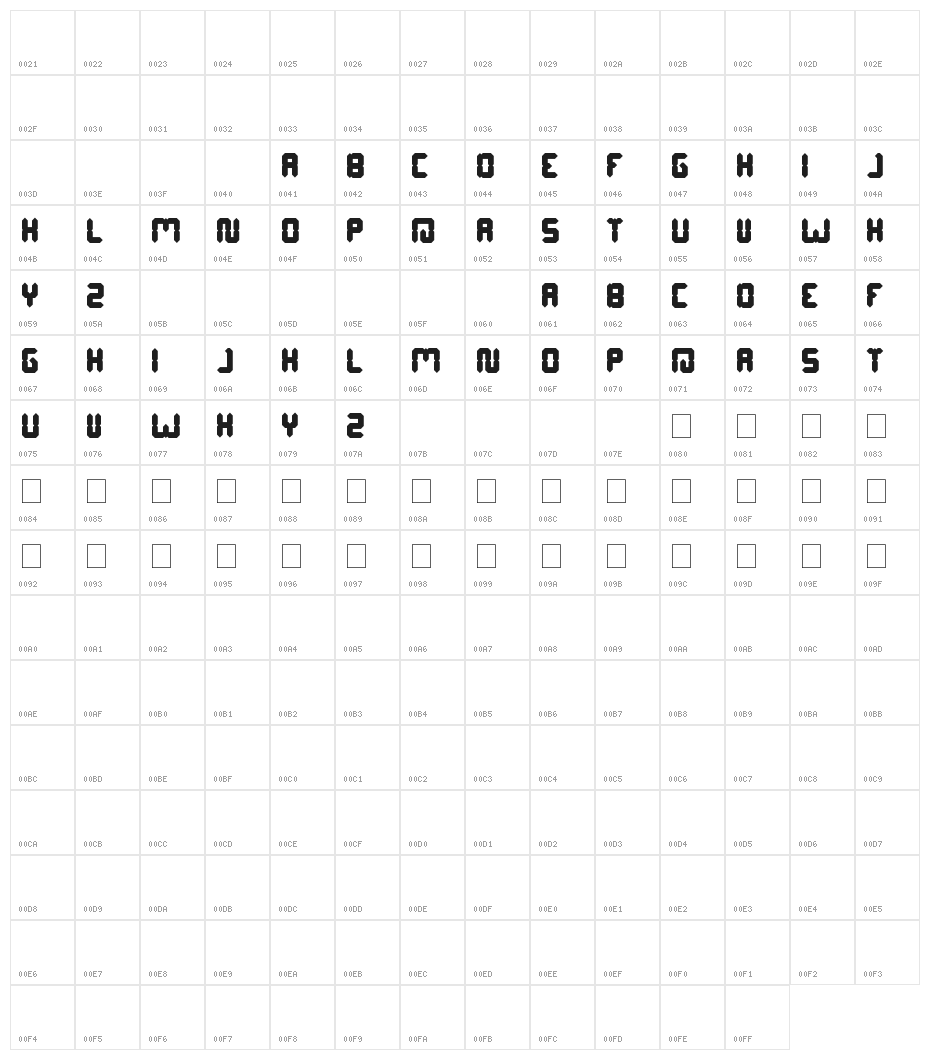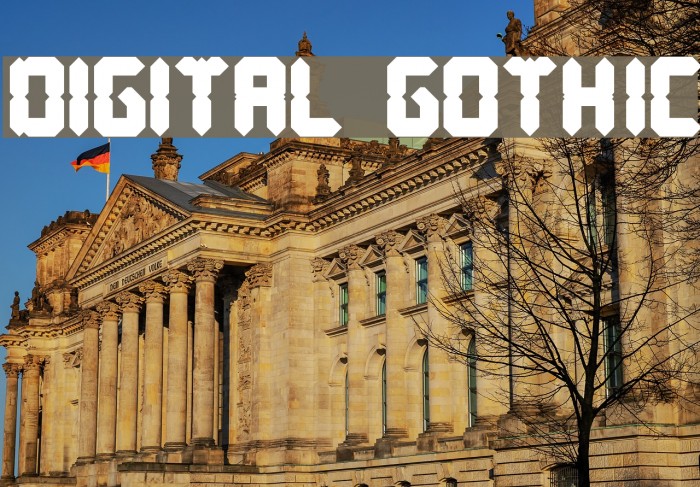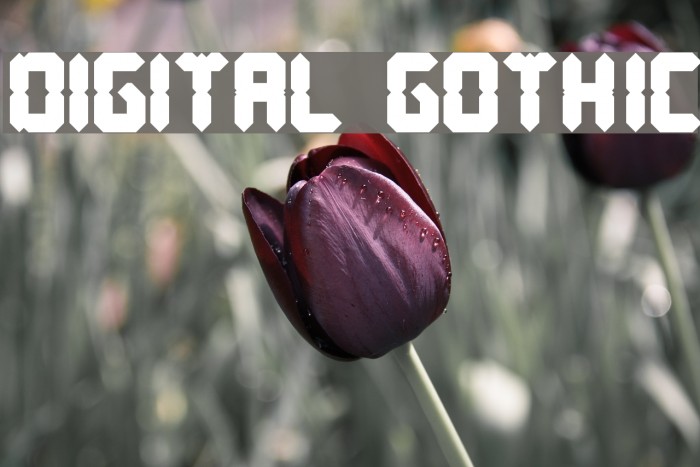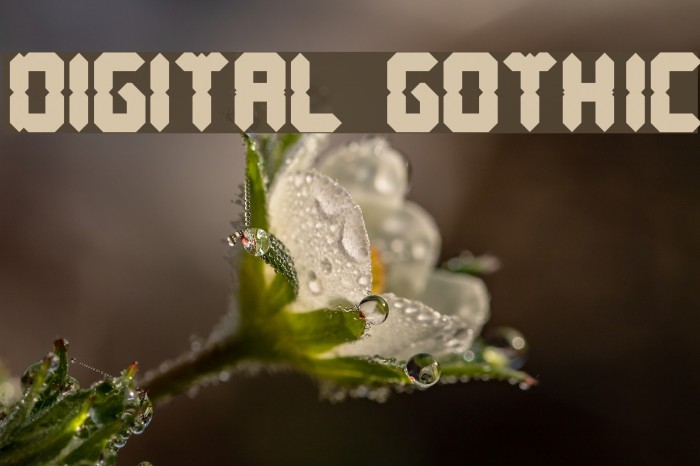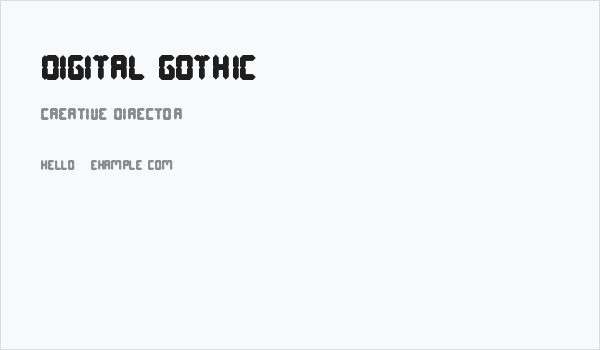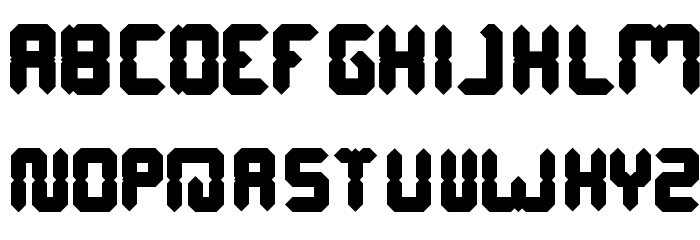
DIGITAL GOTHIC Font
DIGITAL GOTHIC Description
This font features a bold, geometric style with a digital aesthetic reminiscent of gothic architecture. The characters are constructed with sharp angles and straight lines, creating a futuristic and edgy look. The uppercase and lowercase letters maintain a consistent height, contributing to a uniform appearance. The numbers and special characters are designed to match the overall style, ensuring cohesion across all elements. The font's heavy weight and distinctive design make it stand out, ideal for projects that require a strong visual impact.